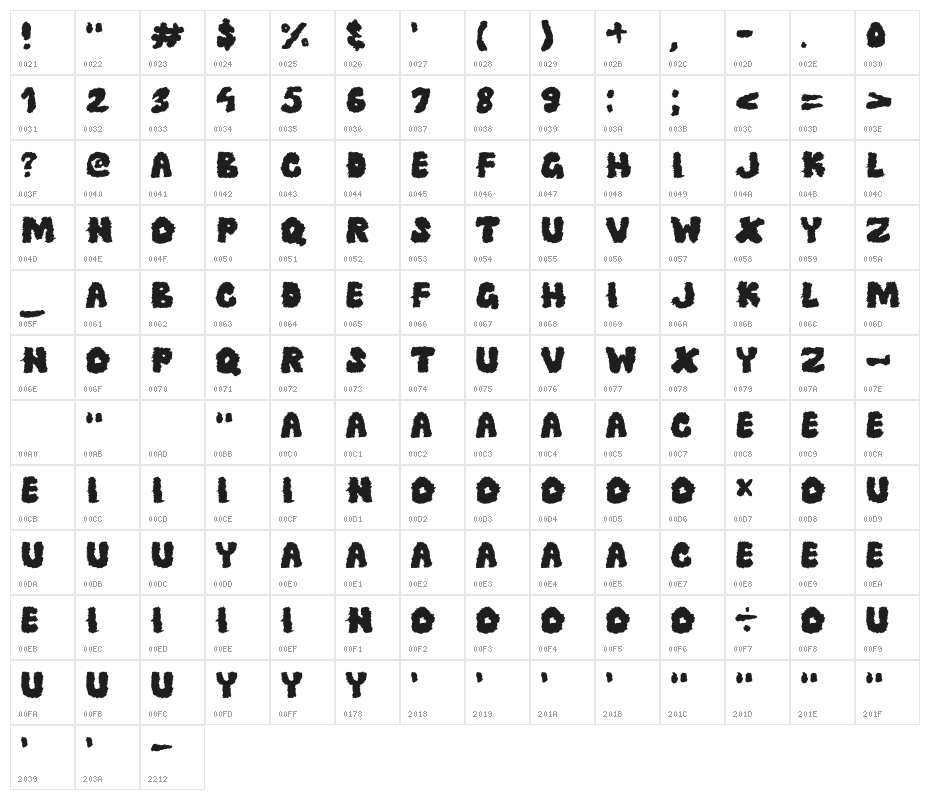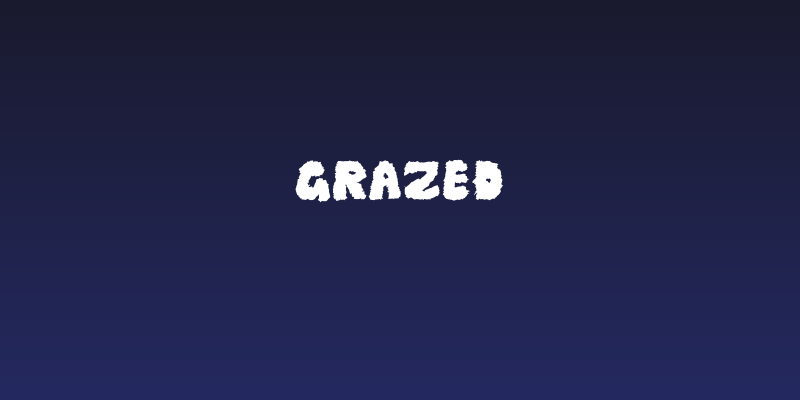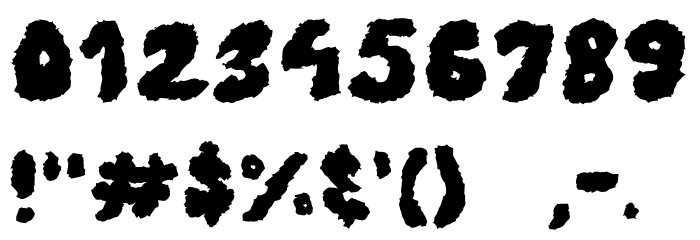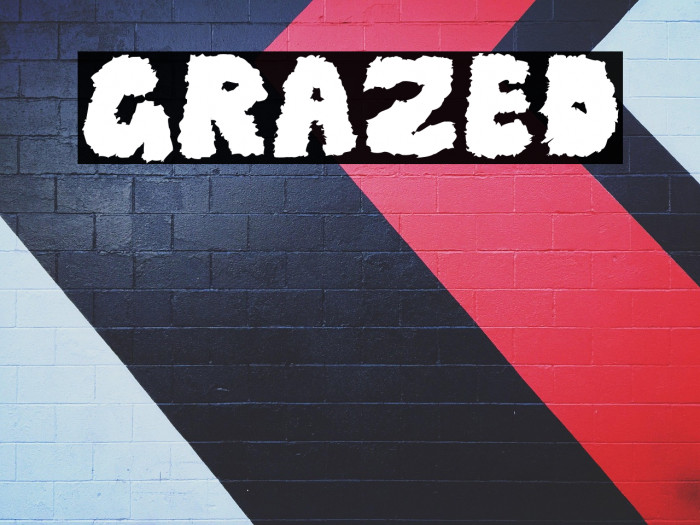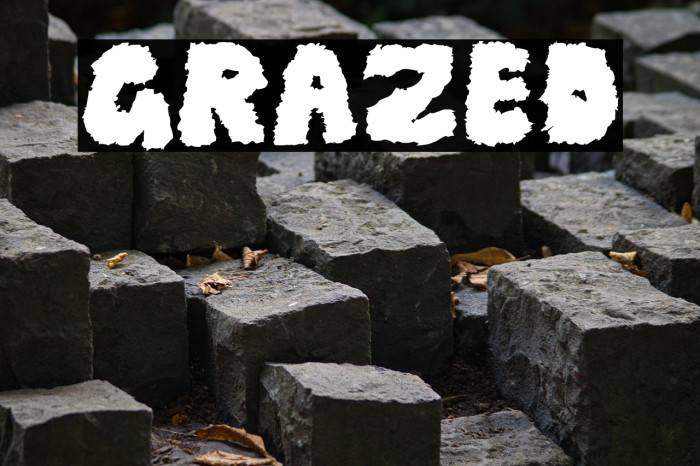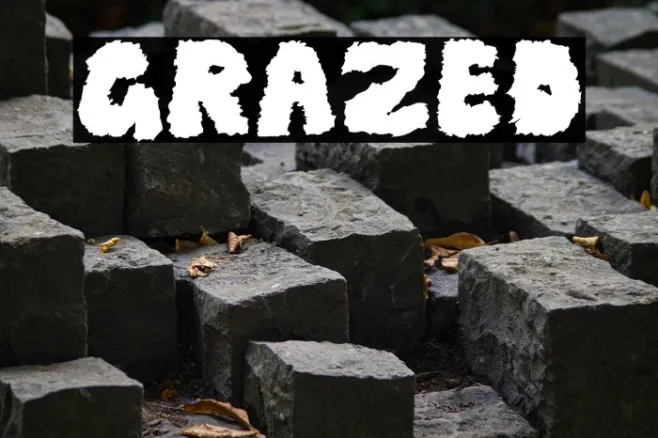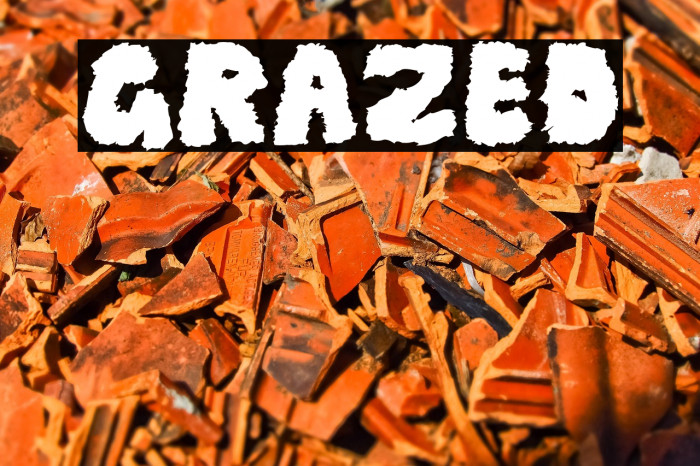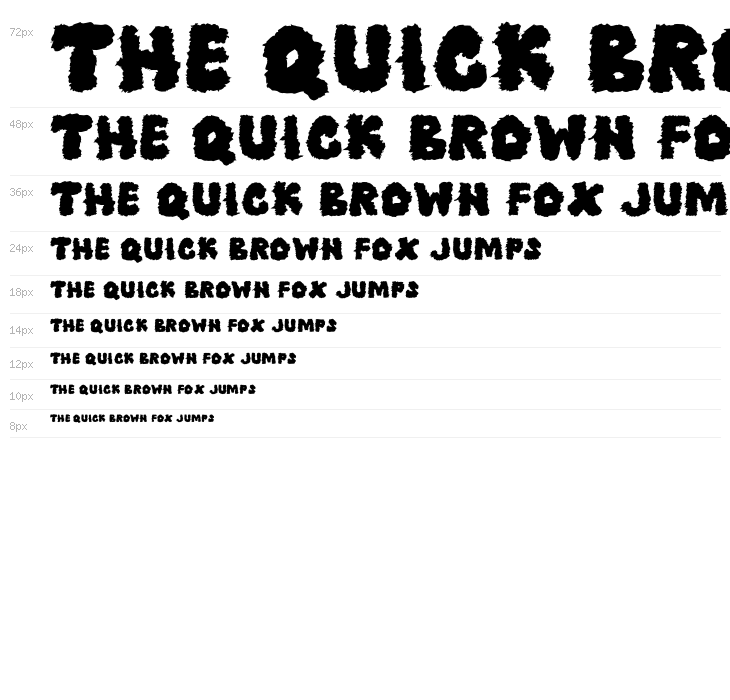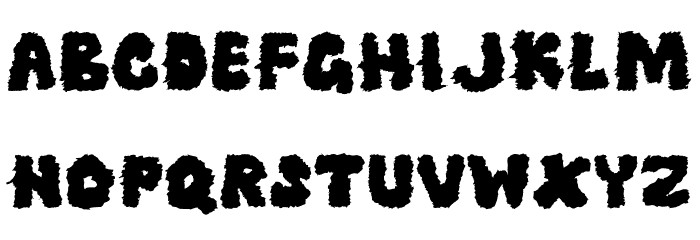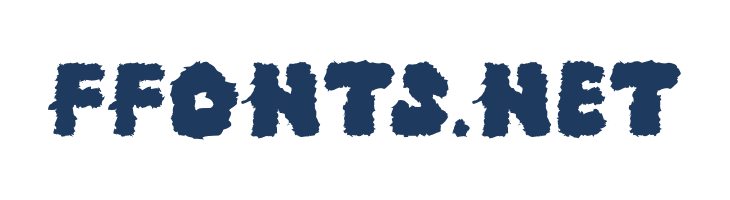
Grazed Font
Grazed Description
This font features a bold and rugged appearance, with each character having a textured, uneven edge that gives it a hand-drawn, organic feel. The letters are thick and substantial, creating a strong visual impact. The irregularity in the strokes adds a dynamic and energetic quality, making it stand out in any design. Its unique style is reminiscent of brush strokes or rough sketches, providing a sense of movement and vitality. The font maintains a consistent weight throughout, ensuring readability despite its decorative nature.
| Proposed Projects | Ideal for posters, album covers, branding projects, and any design requiring a bold, artistic touch. |